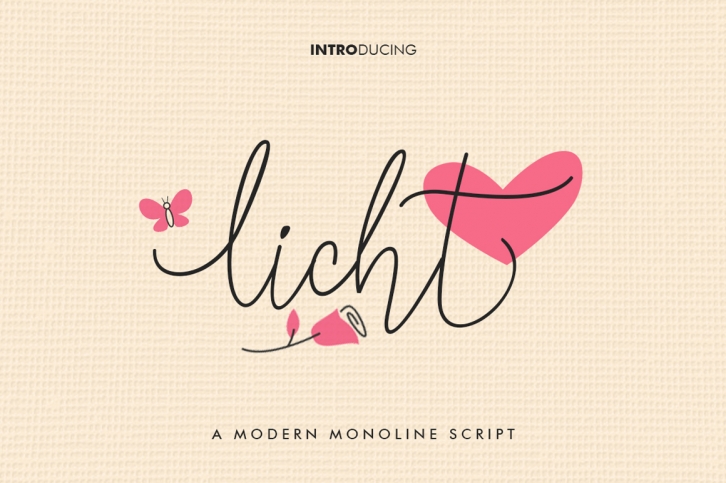
Licht Monoline Script FONT Download
Licht Monoline Script Font Download
Licht Monoline Script is a gorgeous font that was realeased on October 27, 2017. The font can be used in many style contexts and design environments. Perfect for invitations, magazines, websites, logos, and more! It was designed by khurasan and the file size is 17.2 MB. Thanks for checking out this font!